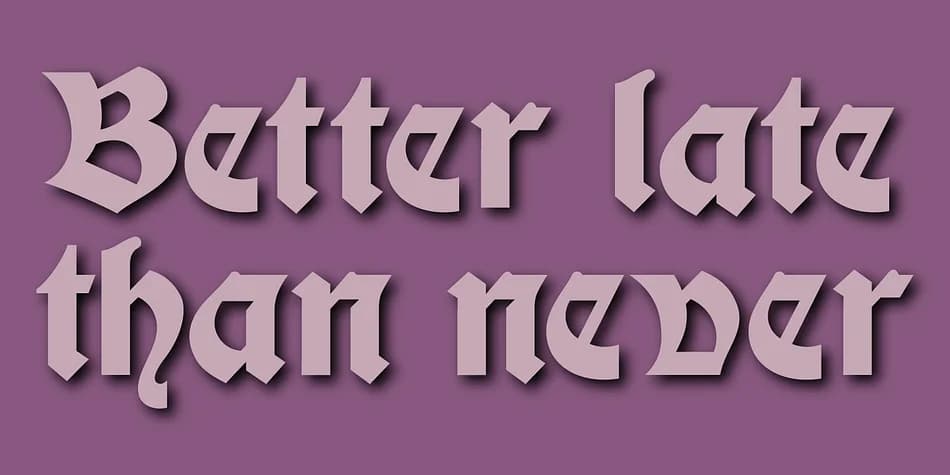
About Display Gothic Font
Display Gothic is a blackletter font designed by Gerald Gallo Fonts. Display Gothic is a premium font β see the listing for pricing and license terms. Blackletter fonts like Display Gothic work best for medieval and gothic designs, band logos, certificates, and tattoo lettering.
Display Gothic Font is a blackletter font that shines as a display or heading face. Pair it with a clean serif or sans-serif font for body text β the contrast creates a clear hierarchy while the two styles stay balanced and easy to read.
Display Gothic Font
Display Gothic Font is a blackletter typeface by Gerald Gallo Fonts, ideal for logos, invitations, branding, and creative projects.